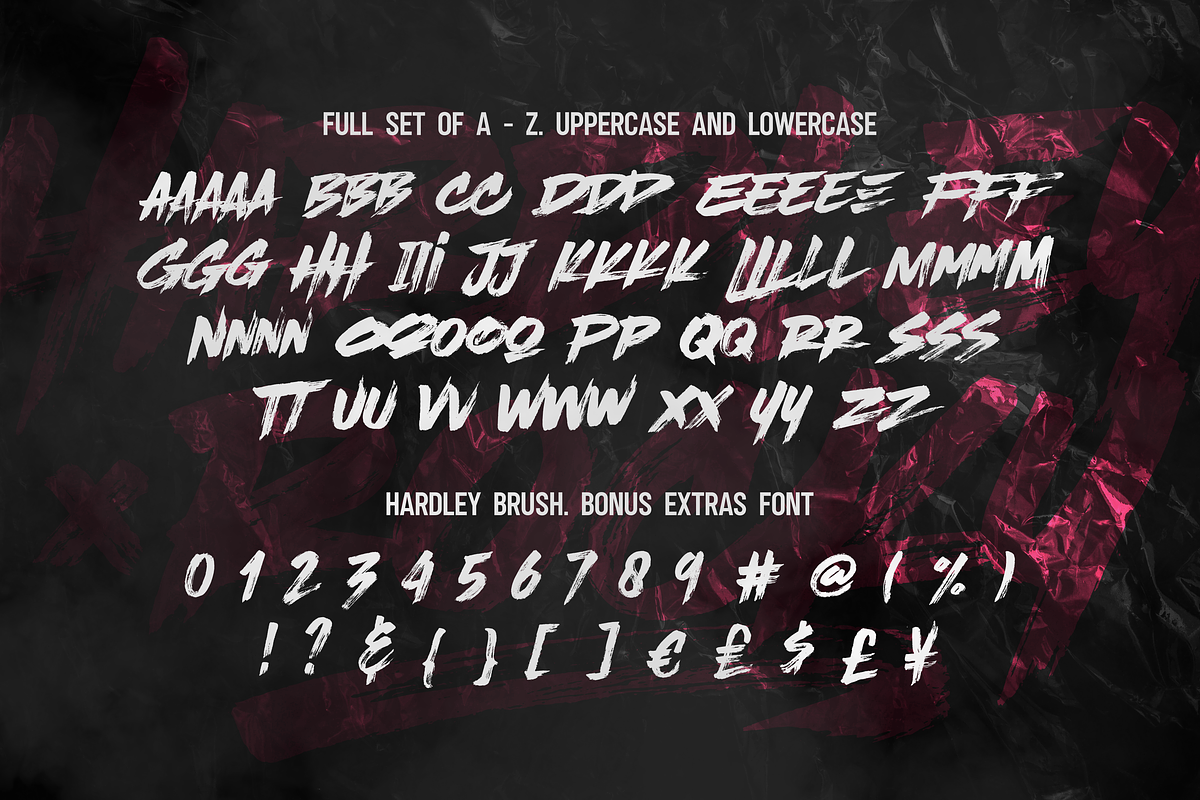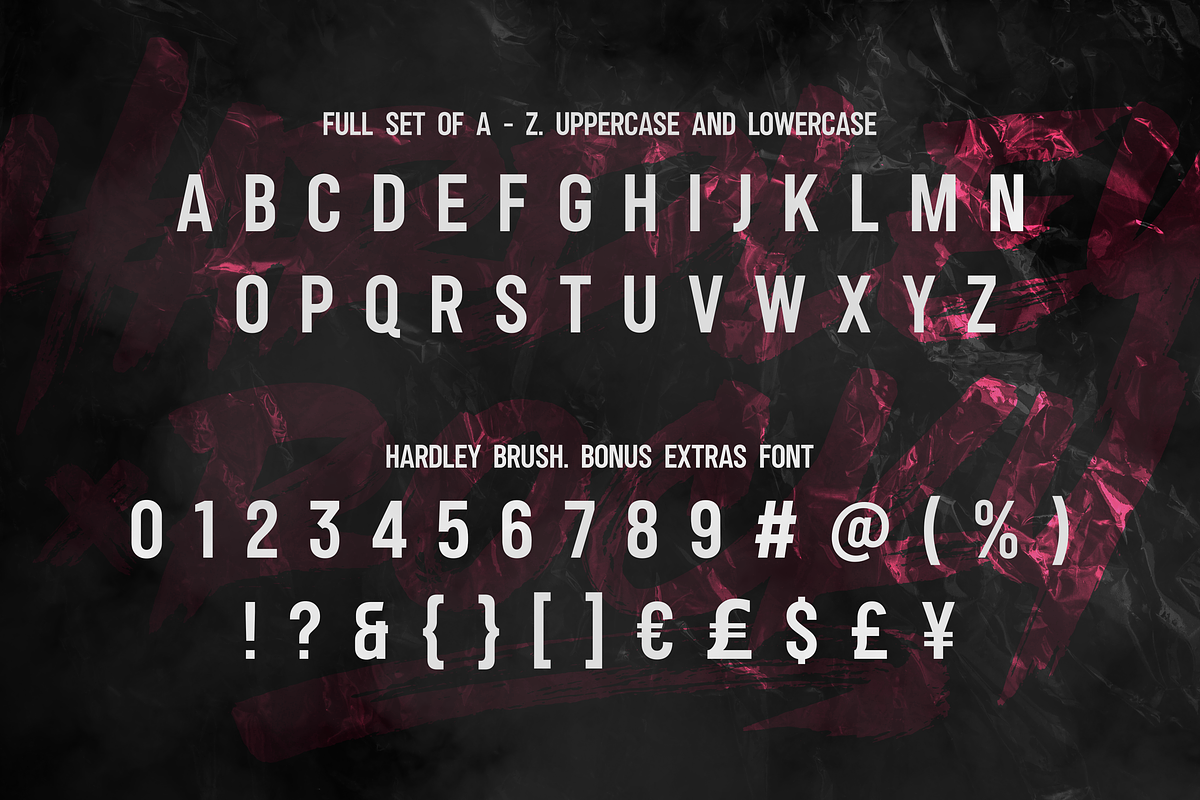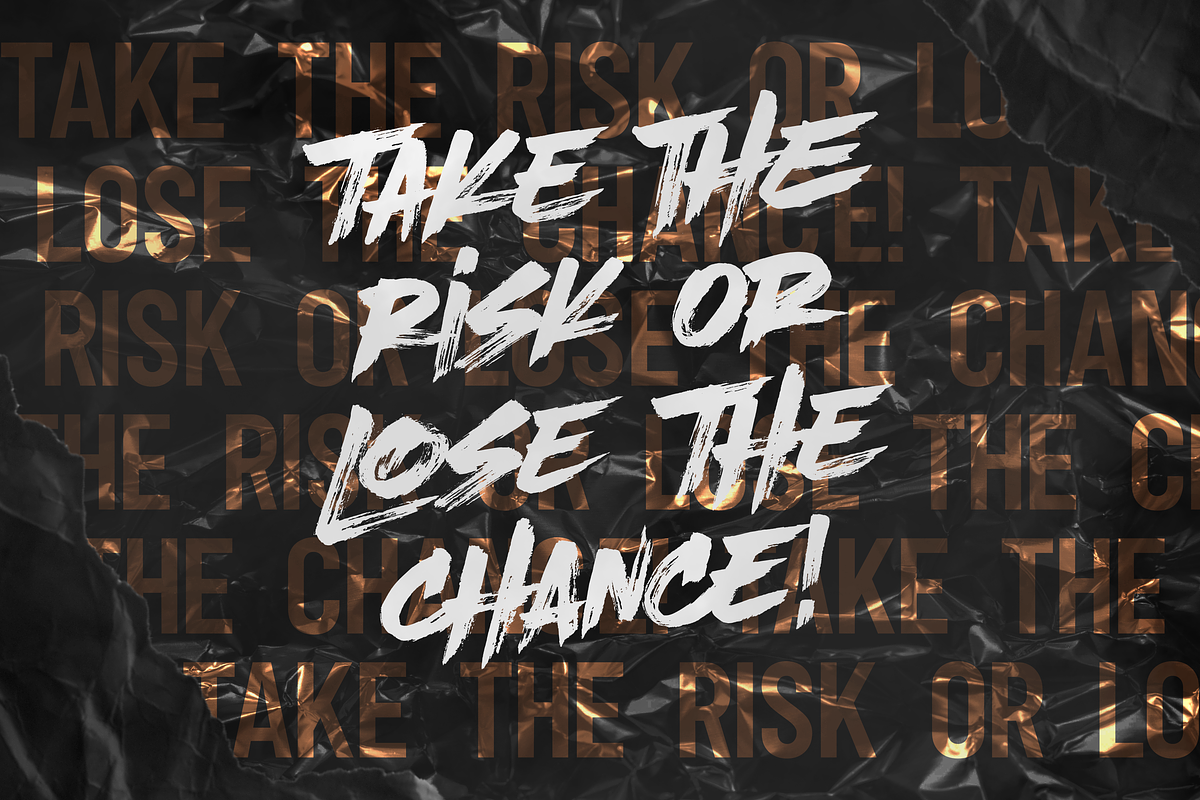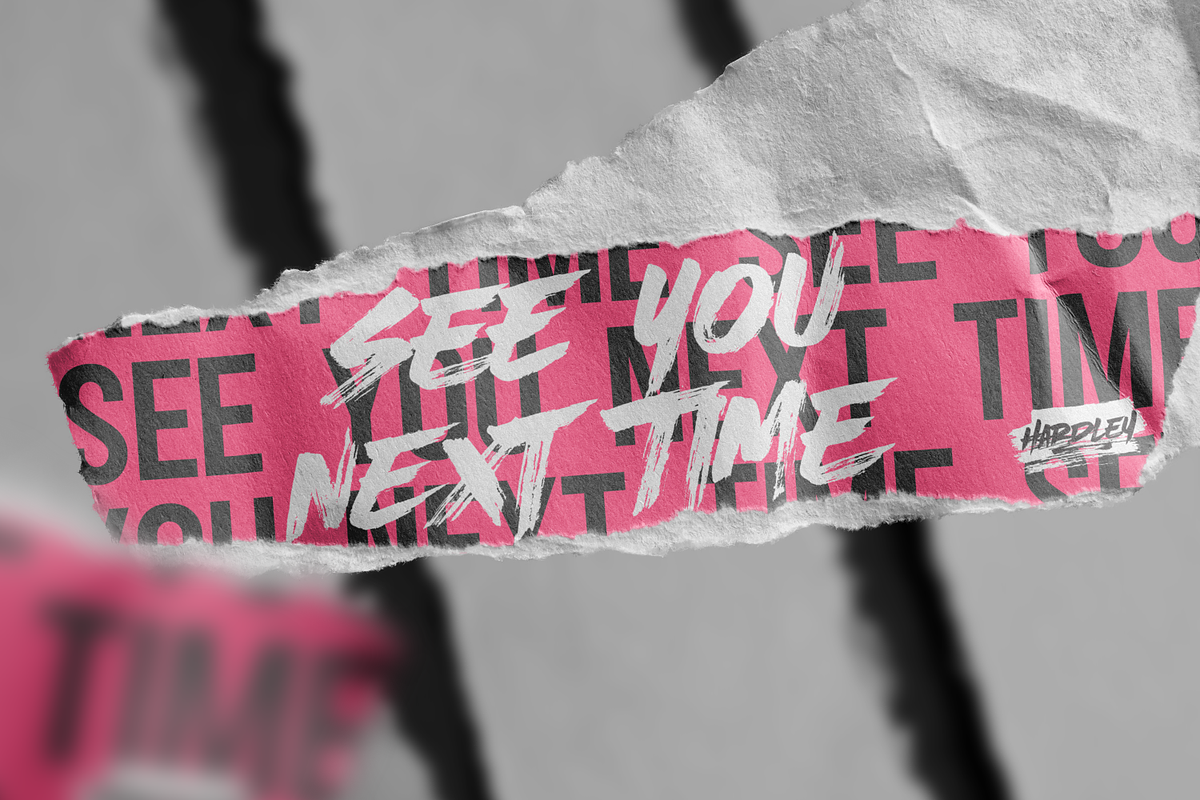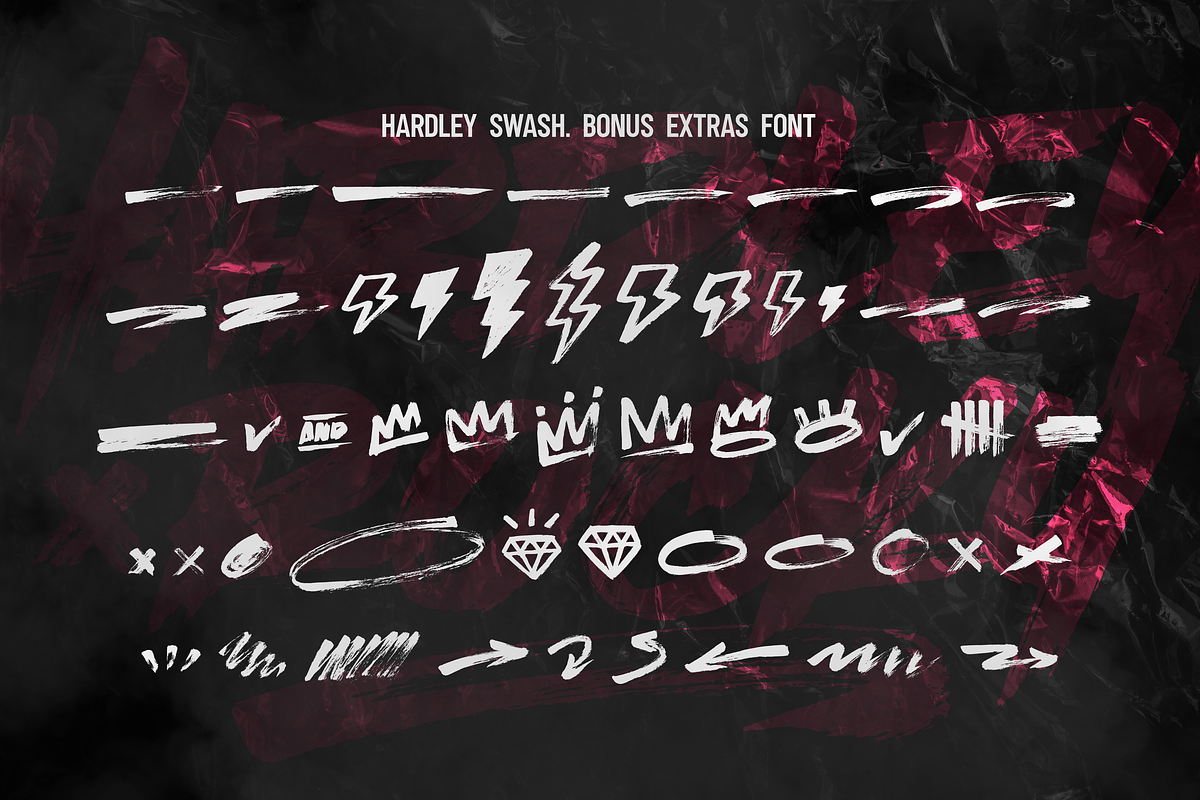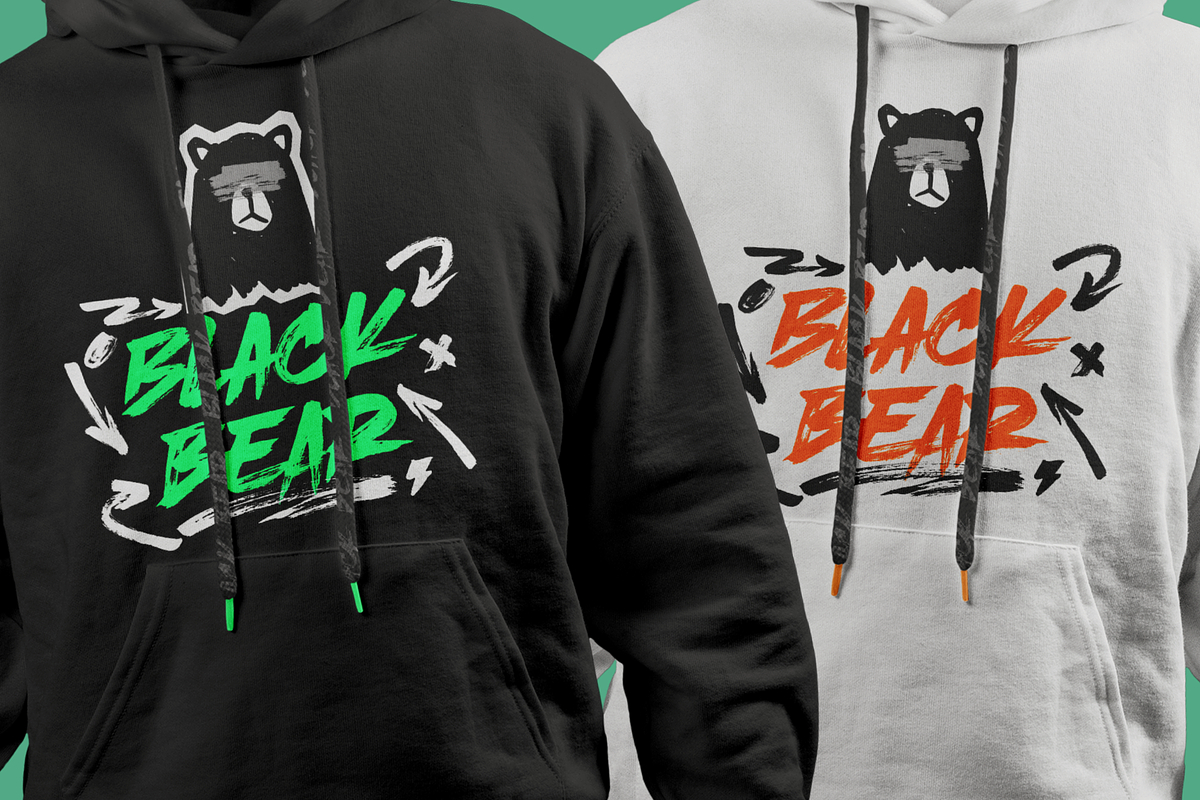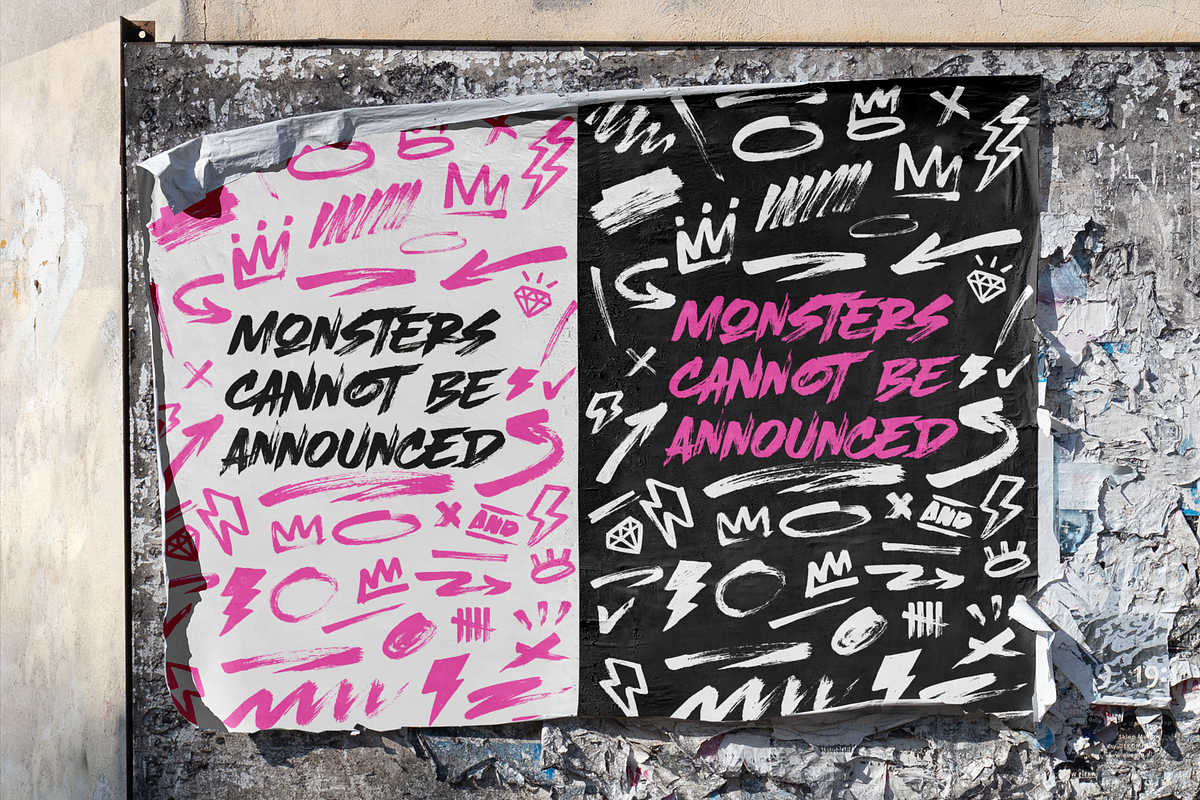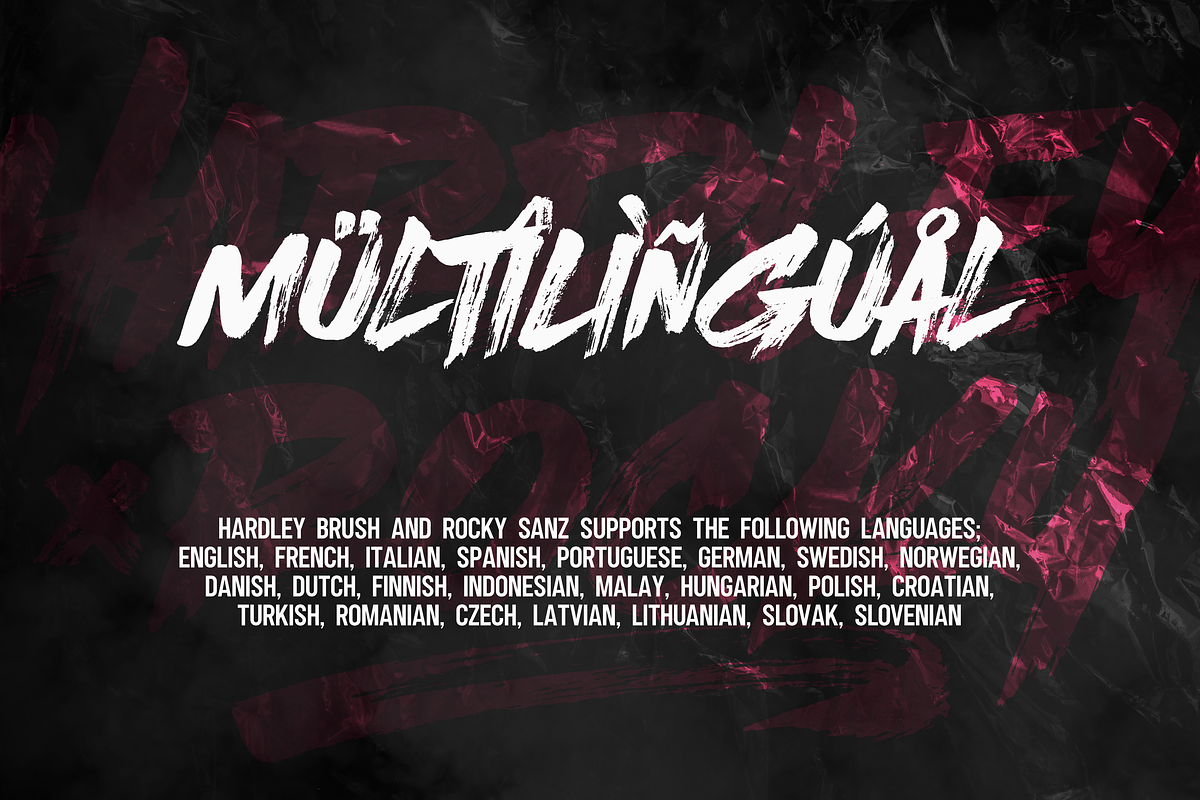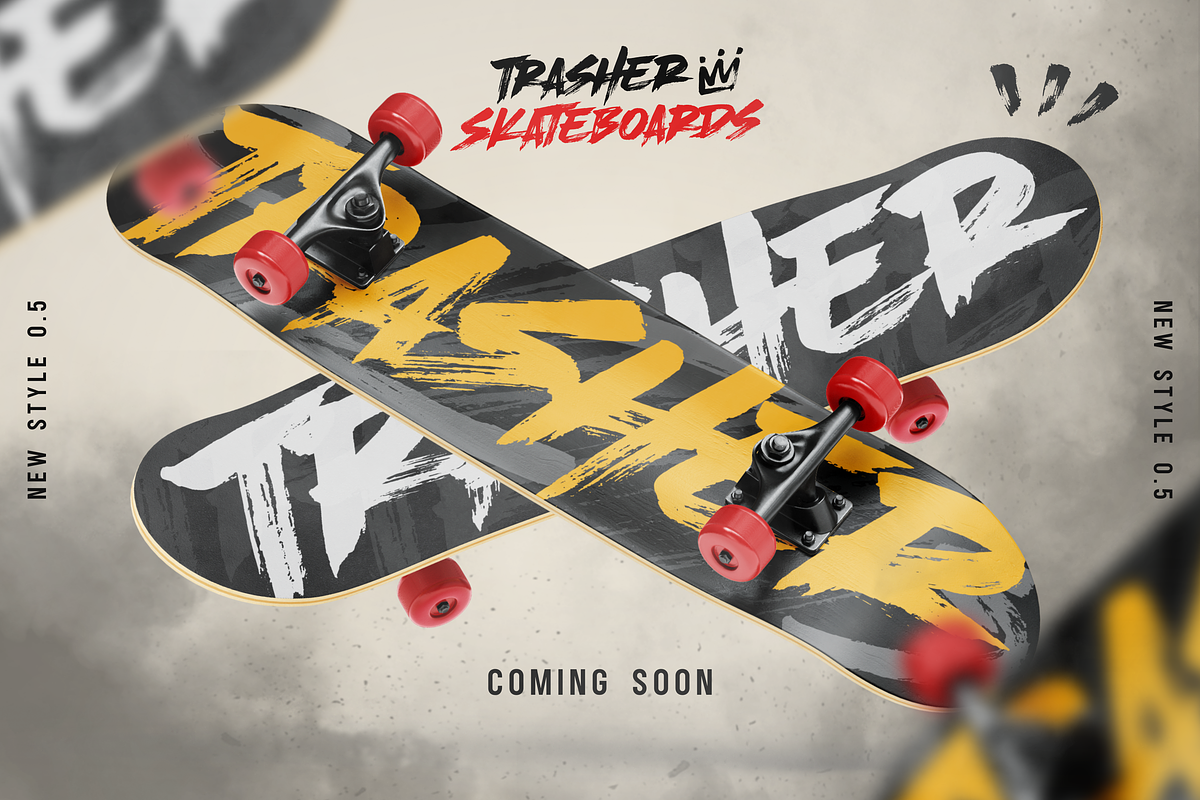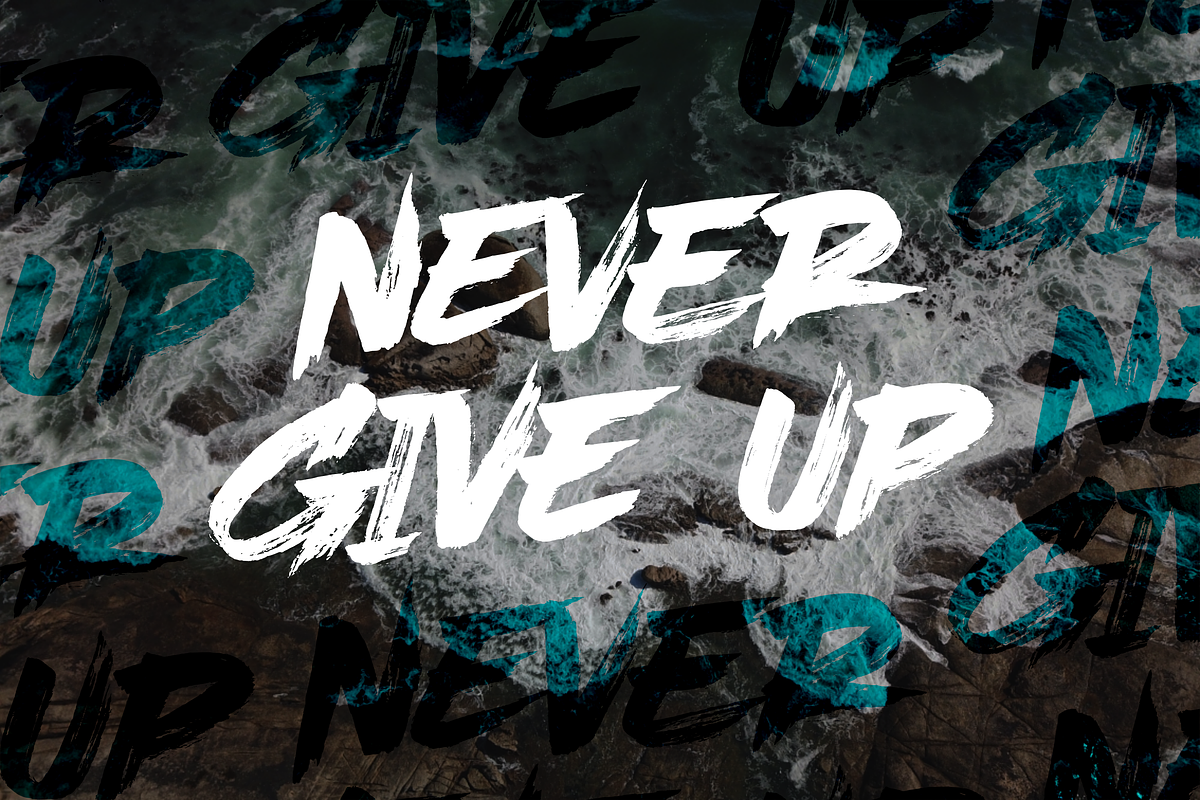
Hardley Brush x Rocky (font duo)
Hardley Brush x Rocky Sanz is Font Duo, modern brush style and modern sans. The best for labels, poster, project designs look modern, authentic and cool . It’s perfect for labels, quotes, posters, DIY projects, branding, packaging, greeting cards, websites, photography overlays, signs, scrapbooking, tags and so much more! That is why Hardley has a textured, and authentic characteristic more natural look. You can activate Alternates glyphs OpenType panel.
Hardley x Rocky Sanz supports the following languages; English, French, Italian, Spanish, Portuguese, German, Swedish, Norwegian, Danish, Dutch, Finnish, Indonesian, Malay, Hungarian, Polish, Croatian, Turkish, Romanian, Czech, Latvian, Lithuanian, Slovak, Slovenian